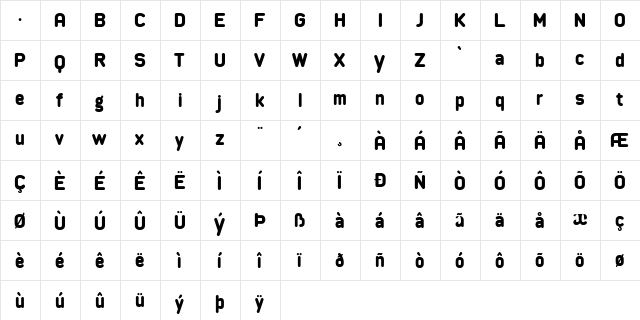
Longdoosi Personal Use RegularPersonalUse
| Designer | Anupap Jaichumnan |
Design Context for Longdoosi Personal Use Typeface
Longdoosi Personal Use takes a measured approach to typography — its balanced proportions and neutral character make it a reliable workhorse for both digital and print work.